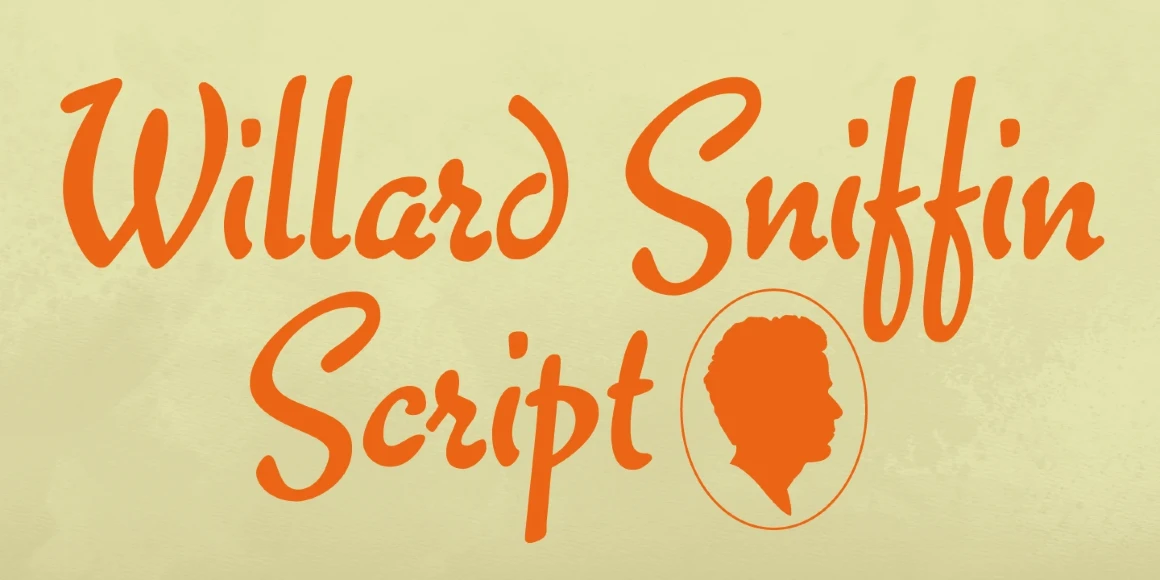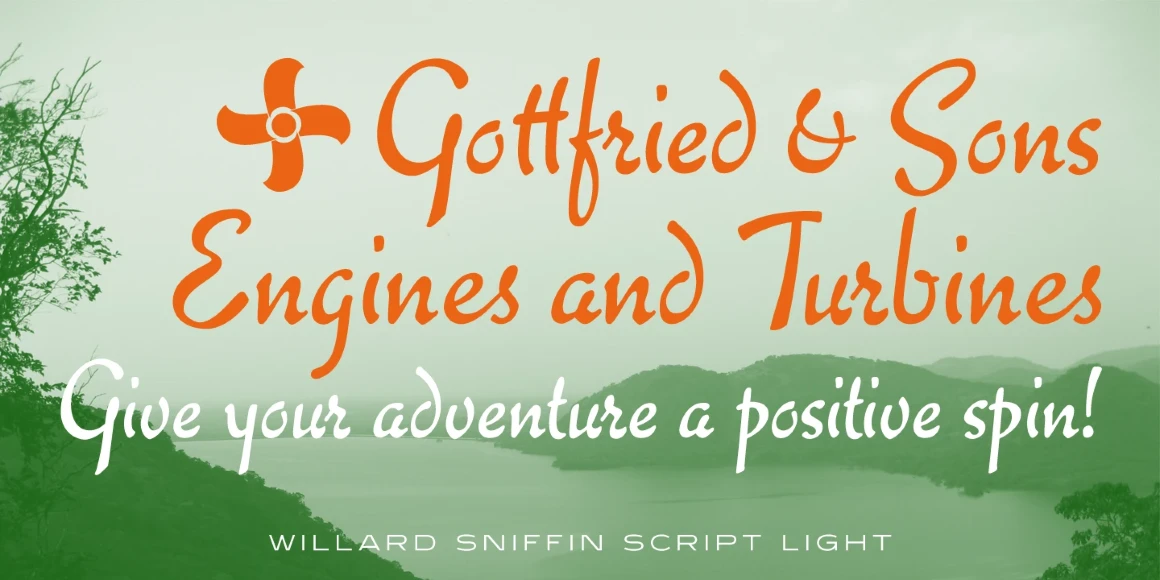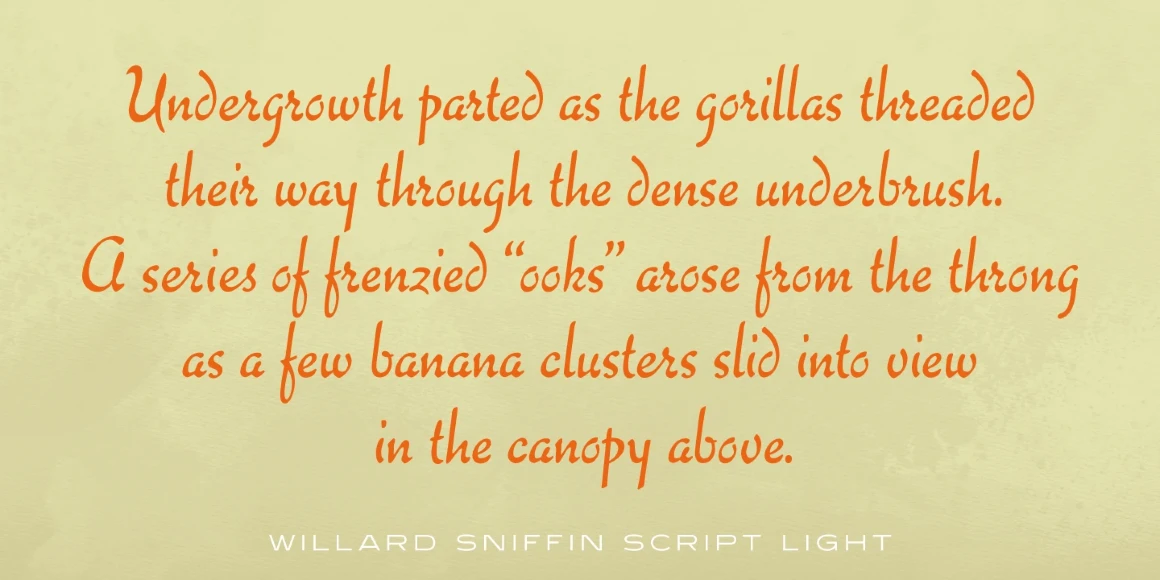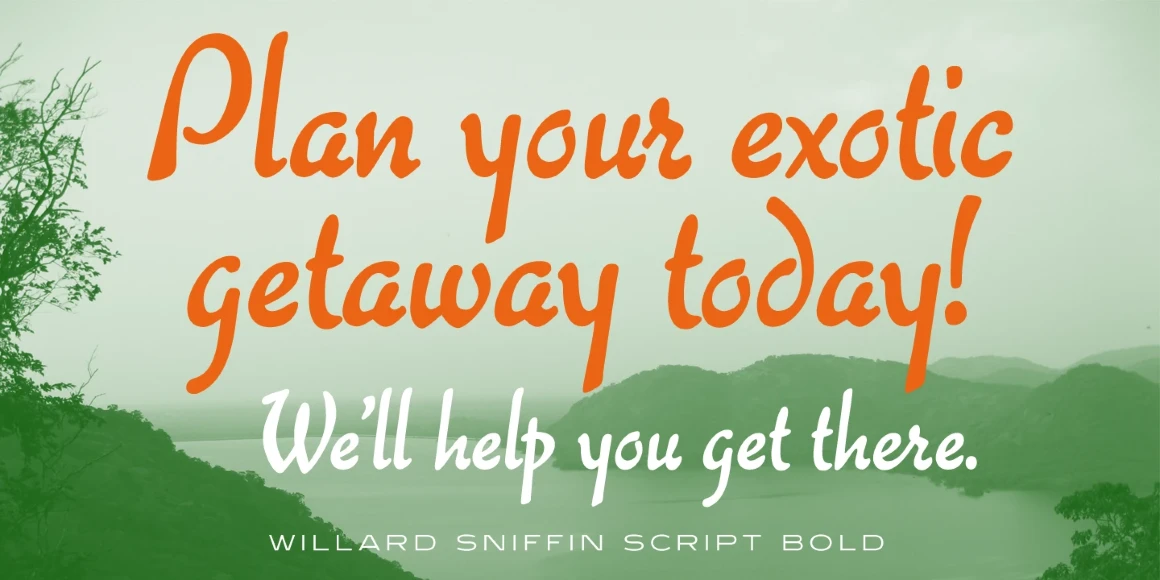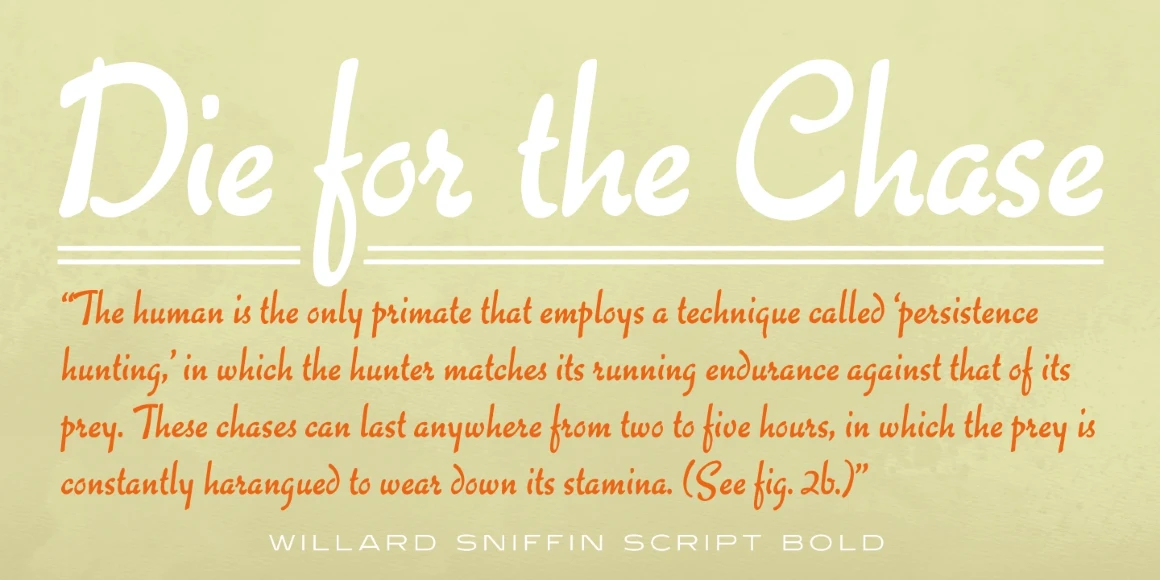
Willard Sniffin Script
Willard Sniffin Script Light
Willard Sniffin Script Bold
Willard Sniffin Script is an informal brush script font family. It was created and produced by Steve Jackaman (ITF) in 2005. The design is based on Willard T. Sniffin’s typeface ‘Keynote,’ which was created in 1933 for ATF. The name ‘Keynote’ was already taken at time of publication, so Jackaman paid homage to the original designer. Willard Sniffin Script possesses high legibility and an attractive cleanliness for a script family. The family’s calligraphic nature gives it an approachable yet formal feel, and fits nicely into a wide range of projects.